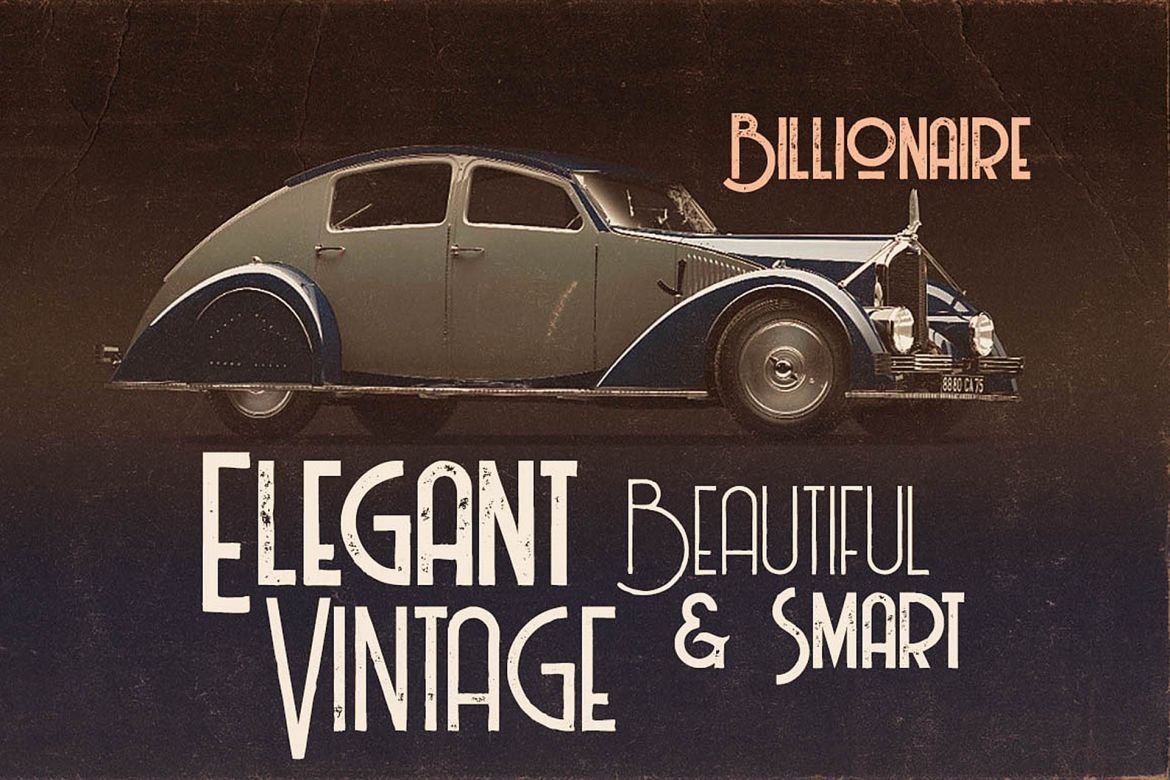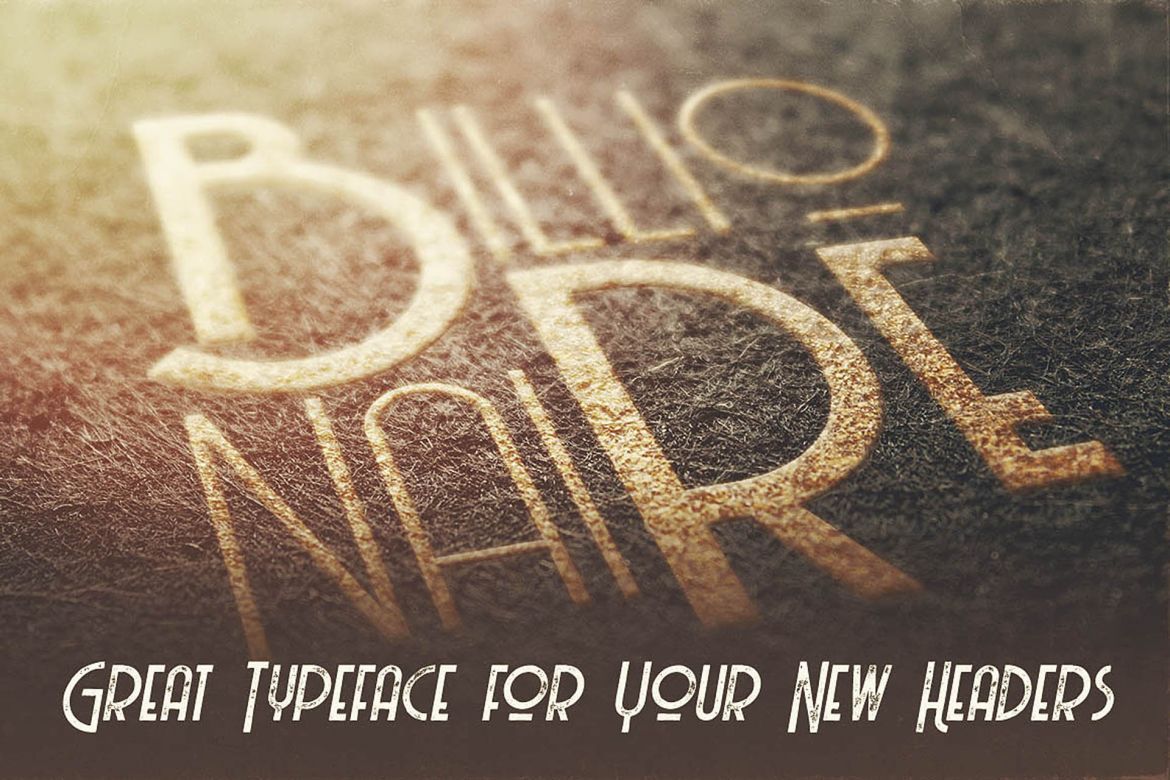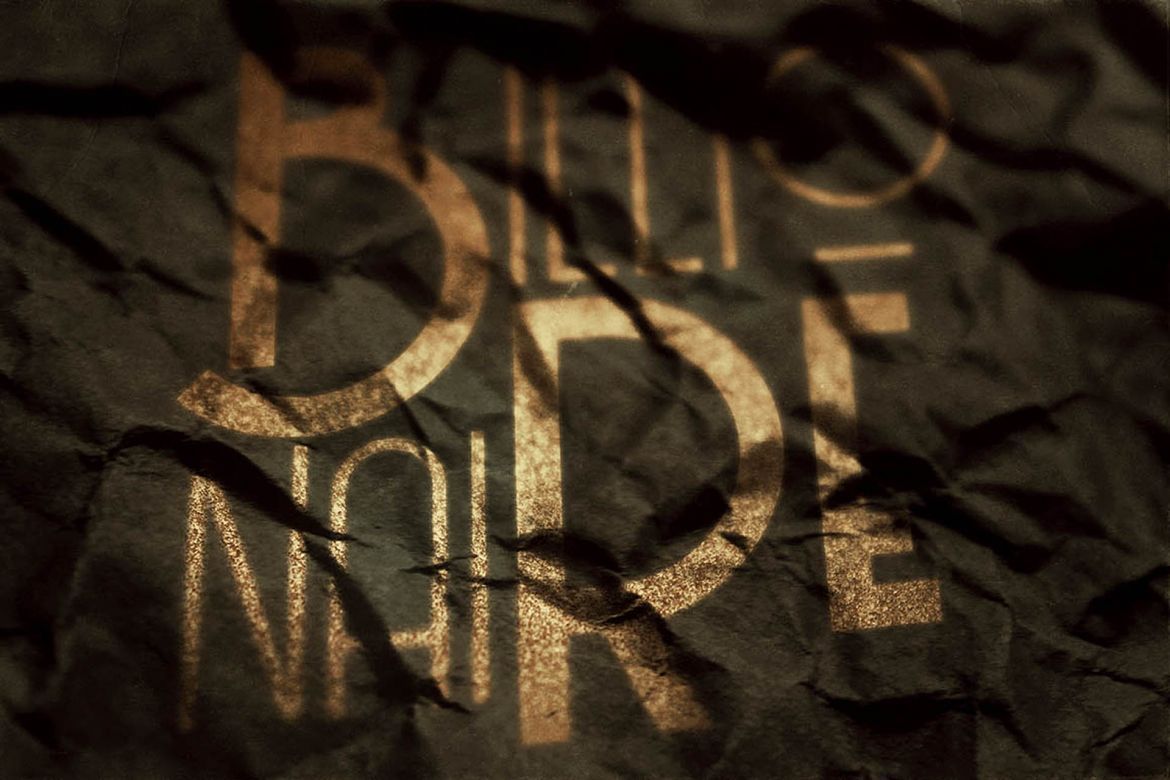
Billionaire - Display Font
Unique vintage or retro style custom sans serif font with 6 styles: regular and grunge, thin and thin grunge & medium & medium grunge